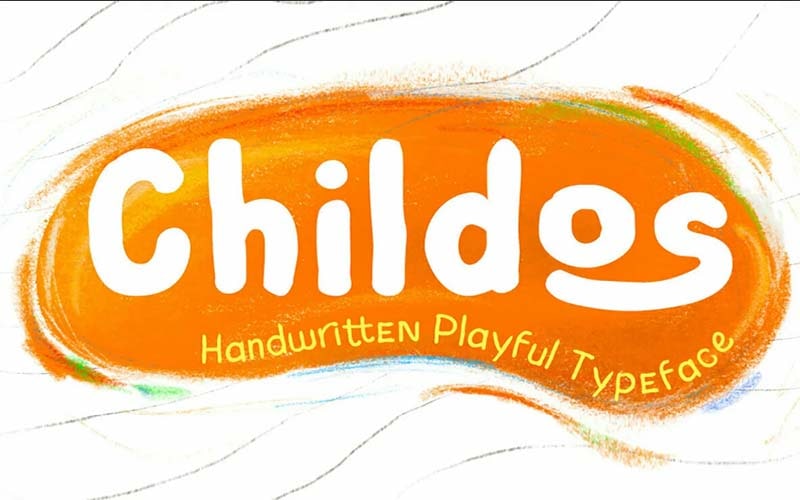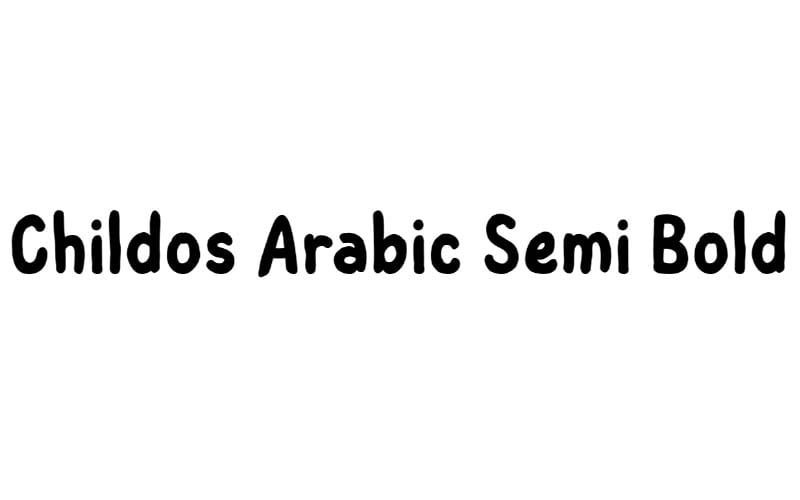
Childos Arabic Semibold Font is a great modern display typeface. This stylish look makes it perfect due to its Latin, symbol, and Arabic written words.
Namela Type designed this superfine and adequate font. The subfamily of this font is regular and has 677 characters and 890 unique glyphs counted in the number.
This amazing font supports multiple international languages with 96 Basic Latin, 127 Latin-1 Supplement, 123 Arabic characters, and 127 Latin Extended-A.
A charming texture-free-version font is available in all lowercase, and uppercase letters, 16 general punctuation, and some unique characters as well. Let’s look at the texture for a moment.
Childos Arabic Semibold Font